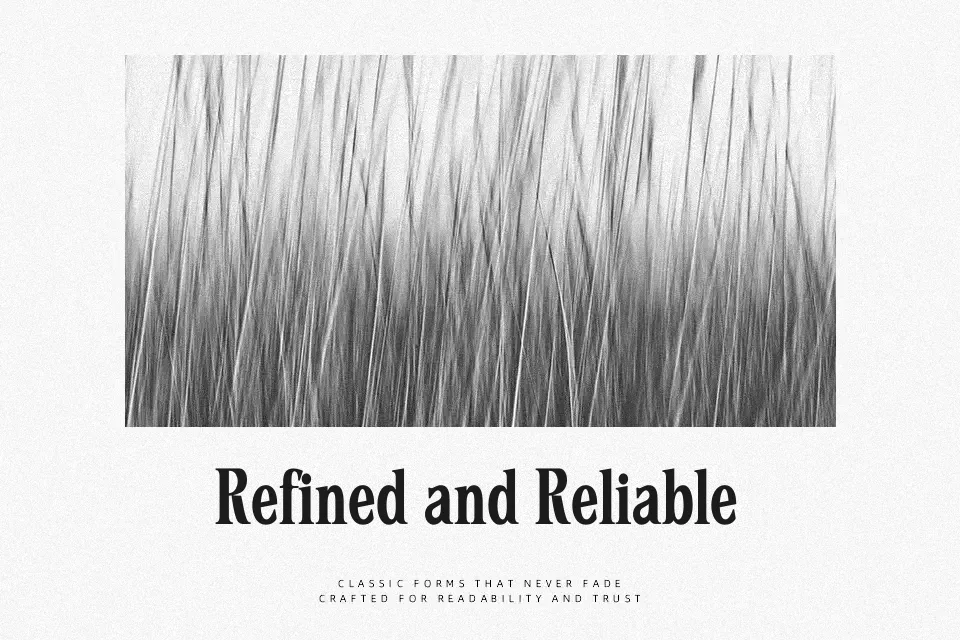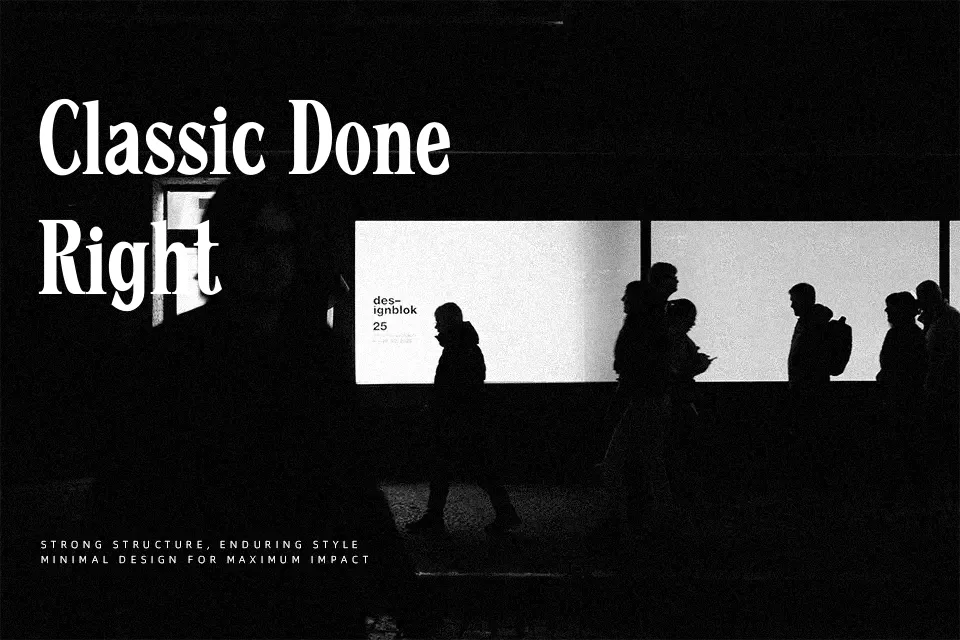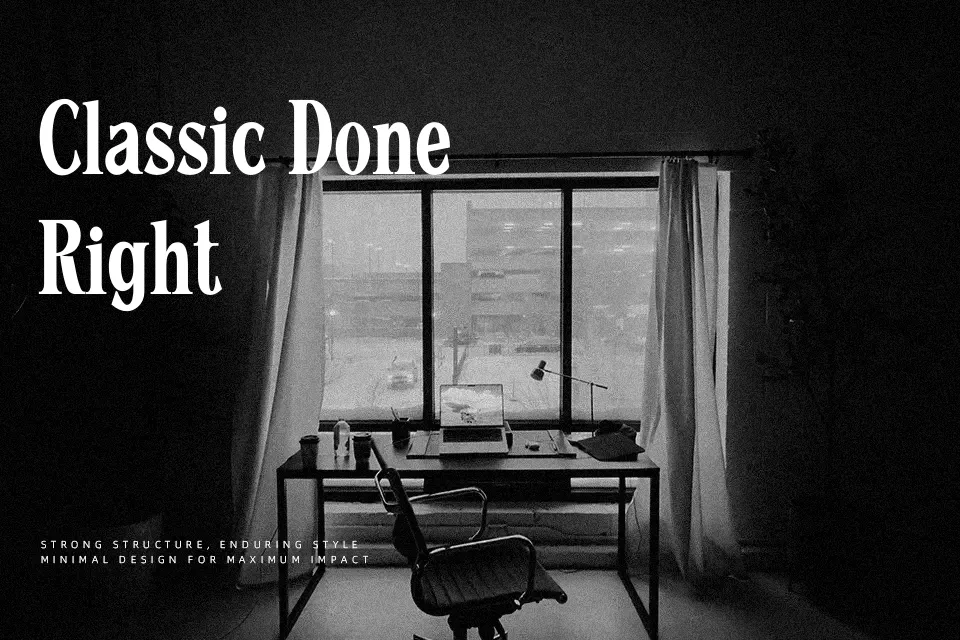
The Fright House Font
The Fright House Font introduces dramatic vertical proportions built on high stroke contrast, razor-sharp triangular serifs, and compact character spacing. Tall ascenders pair with narrow letter widths to establish an unsettling, gothic presence across large titling. The letterforms maintain distinct silhouettes in prominent display environments, but readability declines quickly once placed in continuous body copy or small informational layouts. Subtle bracketed joints and pinched counterforms further emphasize its theatrical nature. Designers will find the typeface most effective when given generous letter spacing across oversized horror posters, suspense editorial headers, and entertainment packaging where visual tension is required.
horror film titles, Halloween event posters, suspense book covers, gothic apparel graphics
extended paragraph text, technical documentation, mobile app interface labels
Perfect for film, halloween, and headline, with a dark and condensed style.